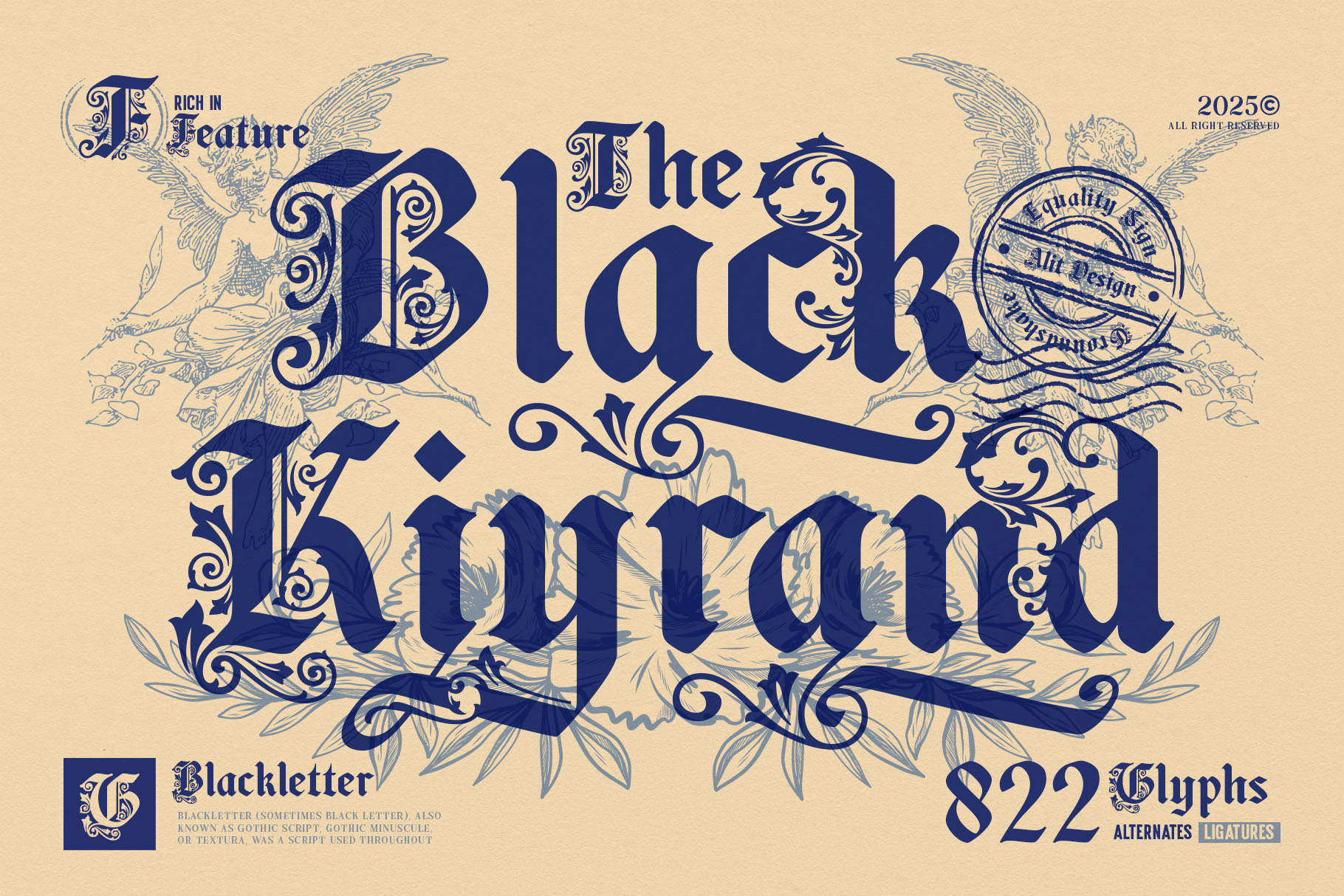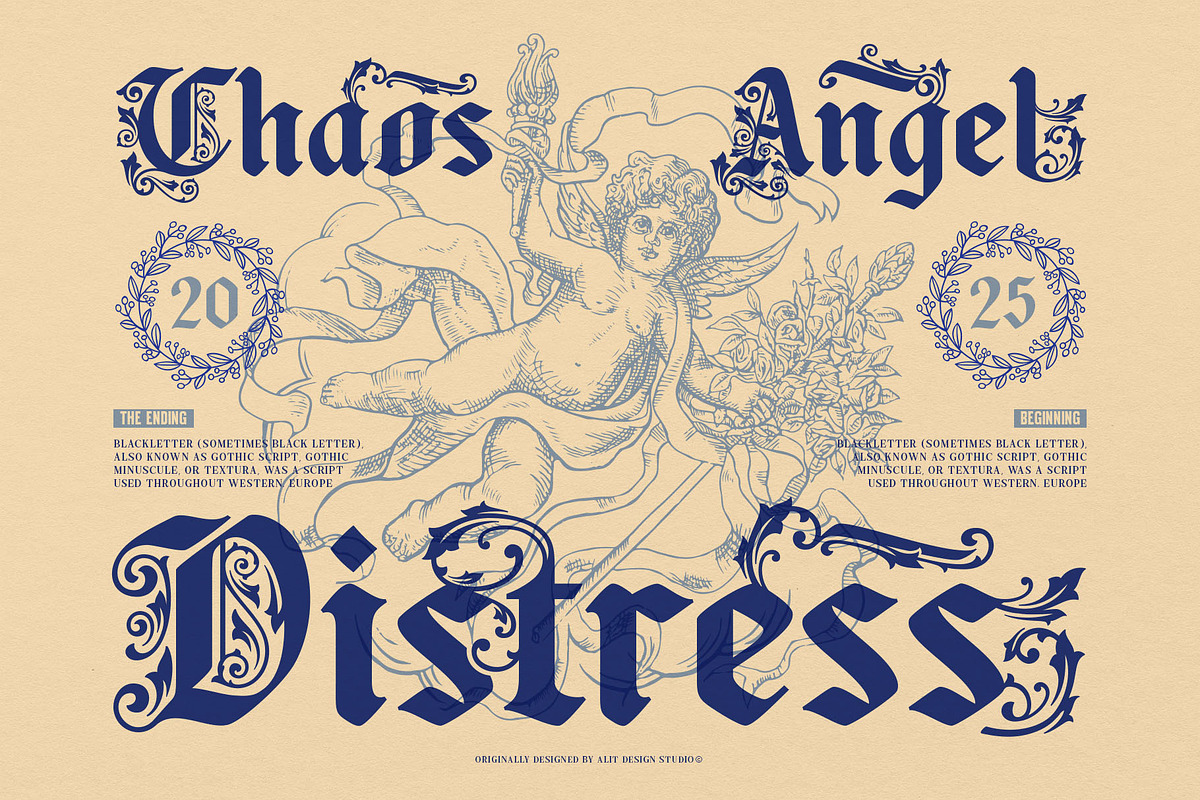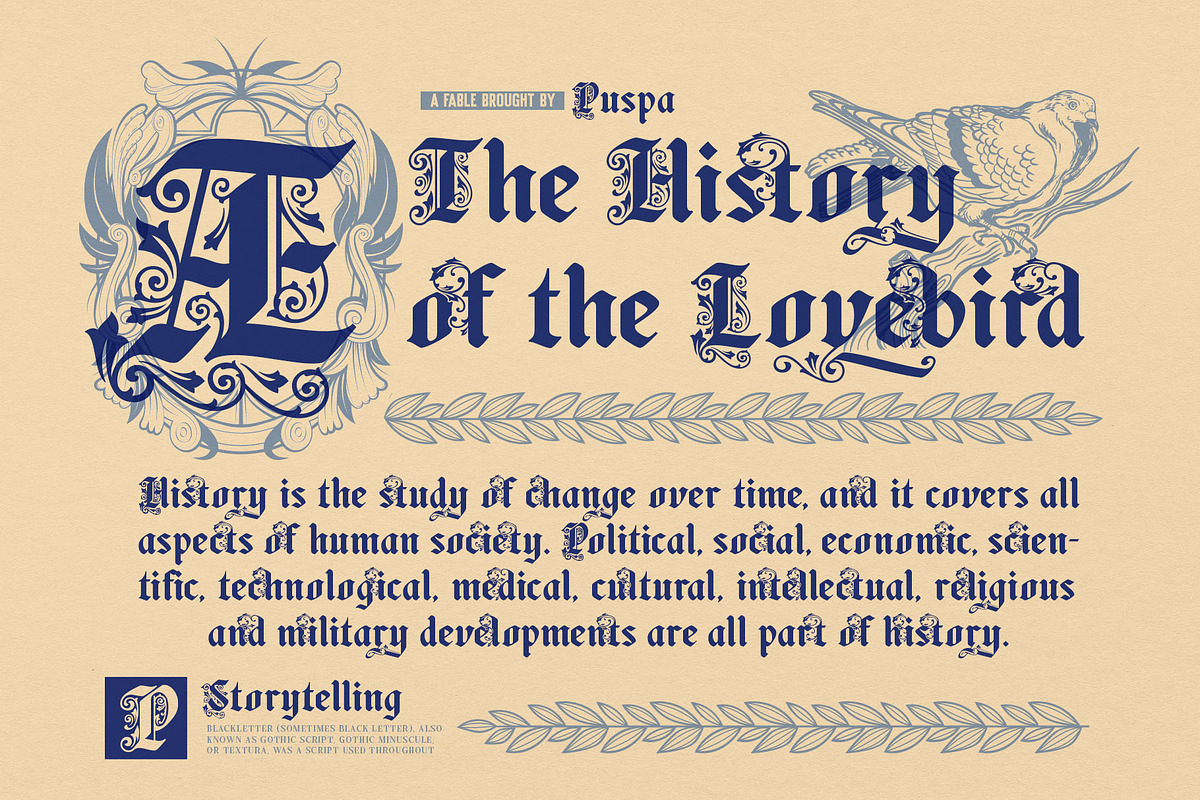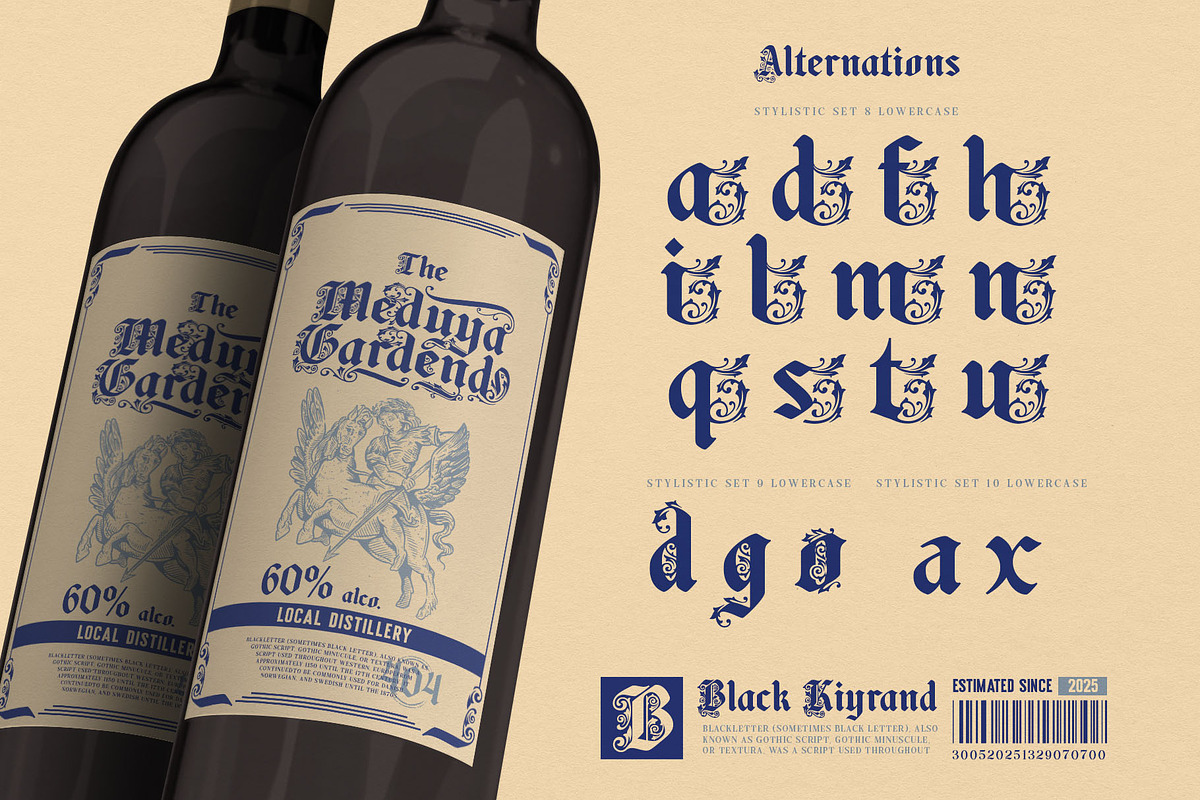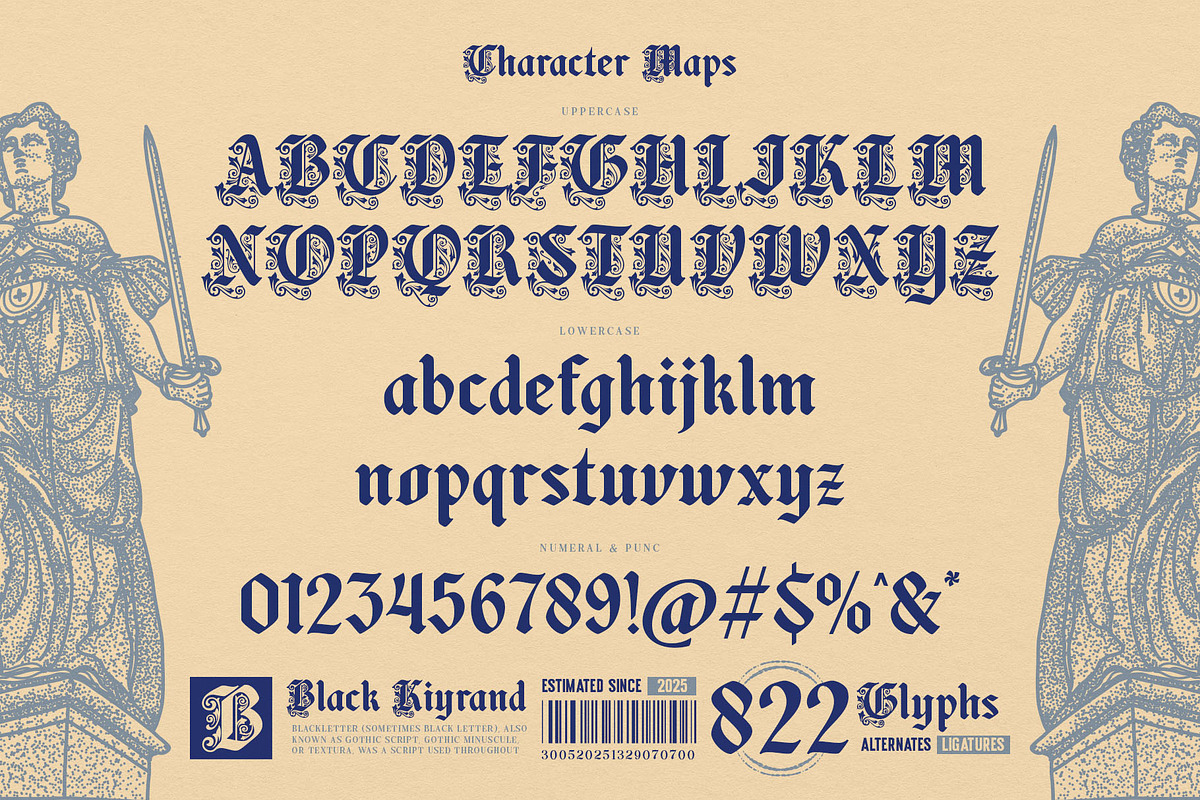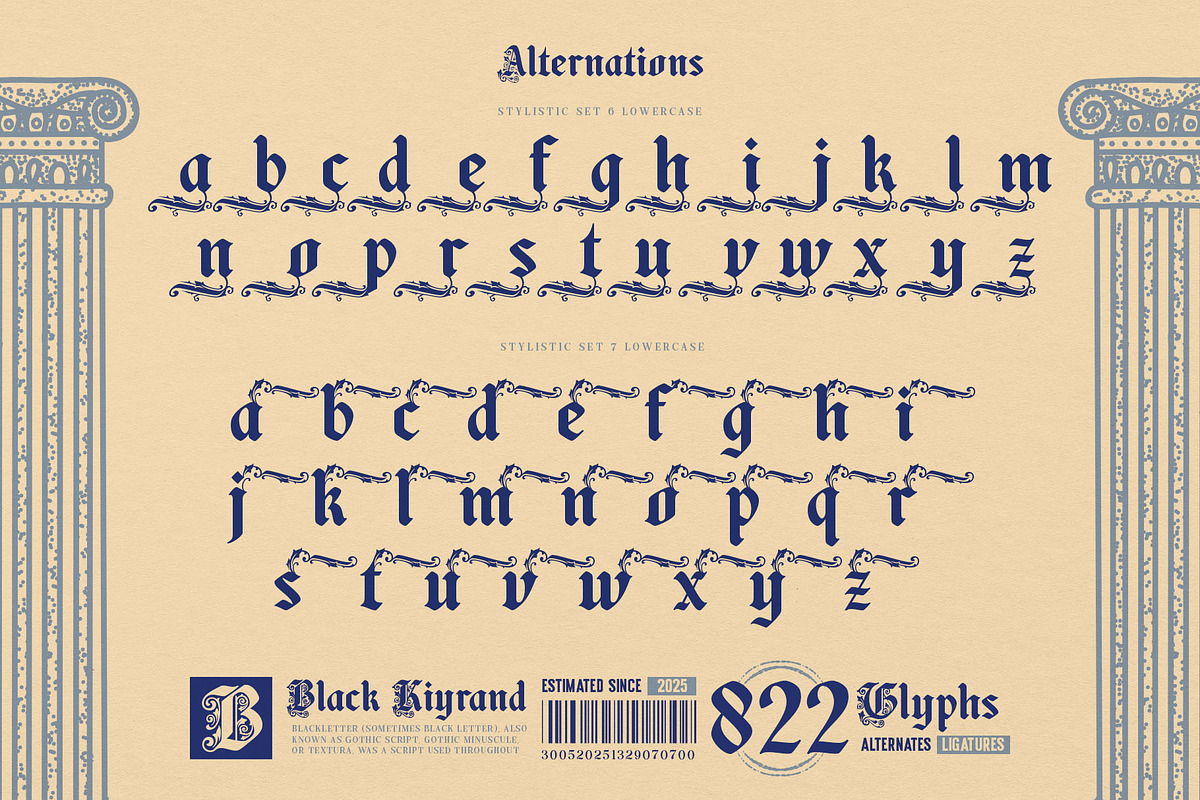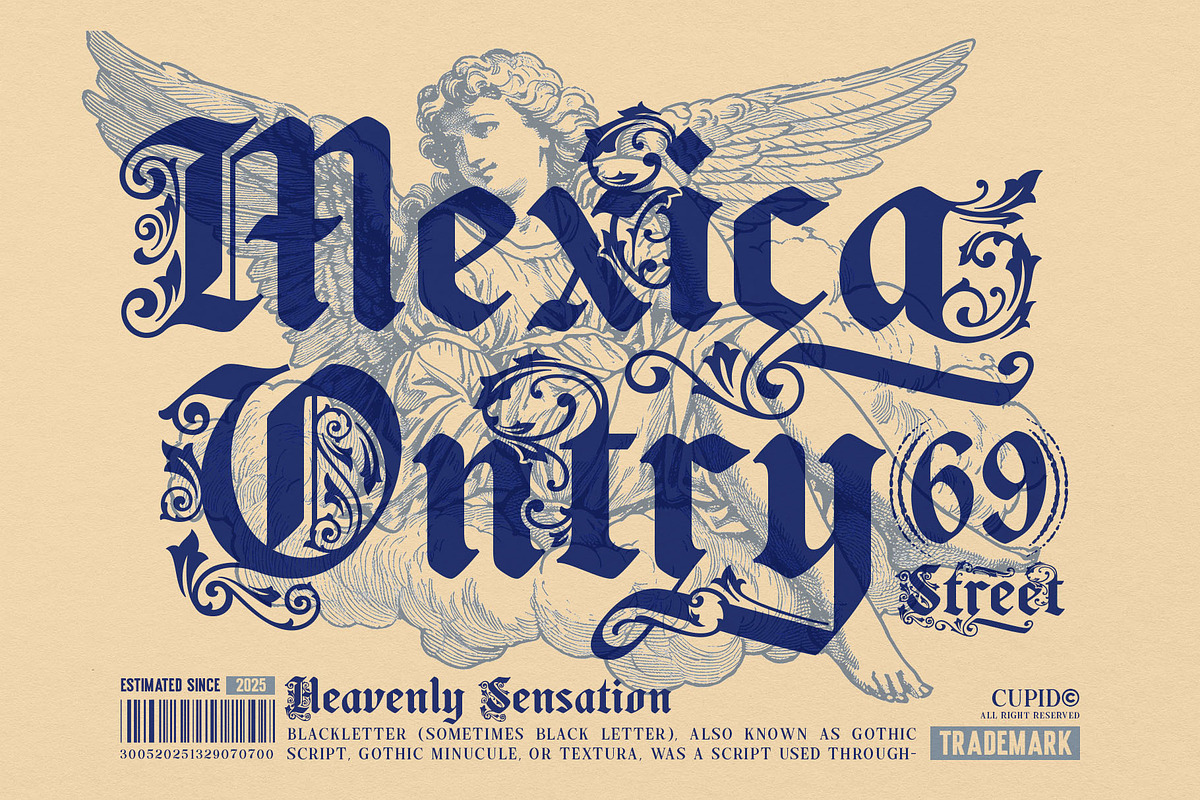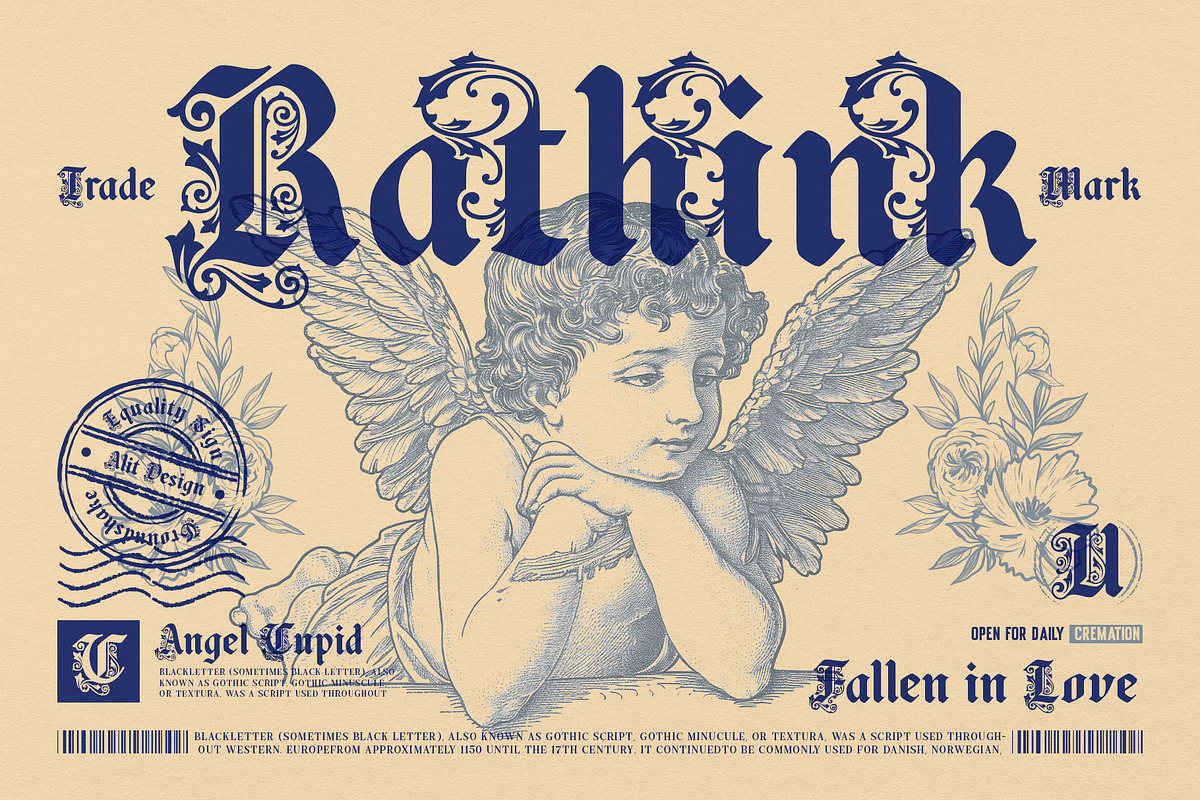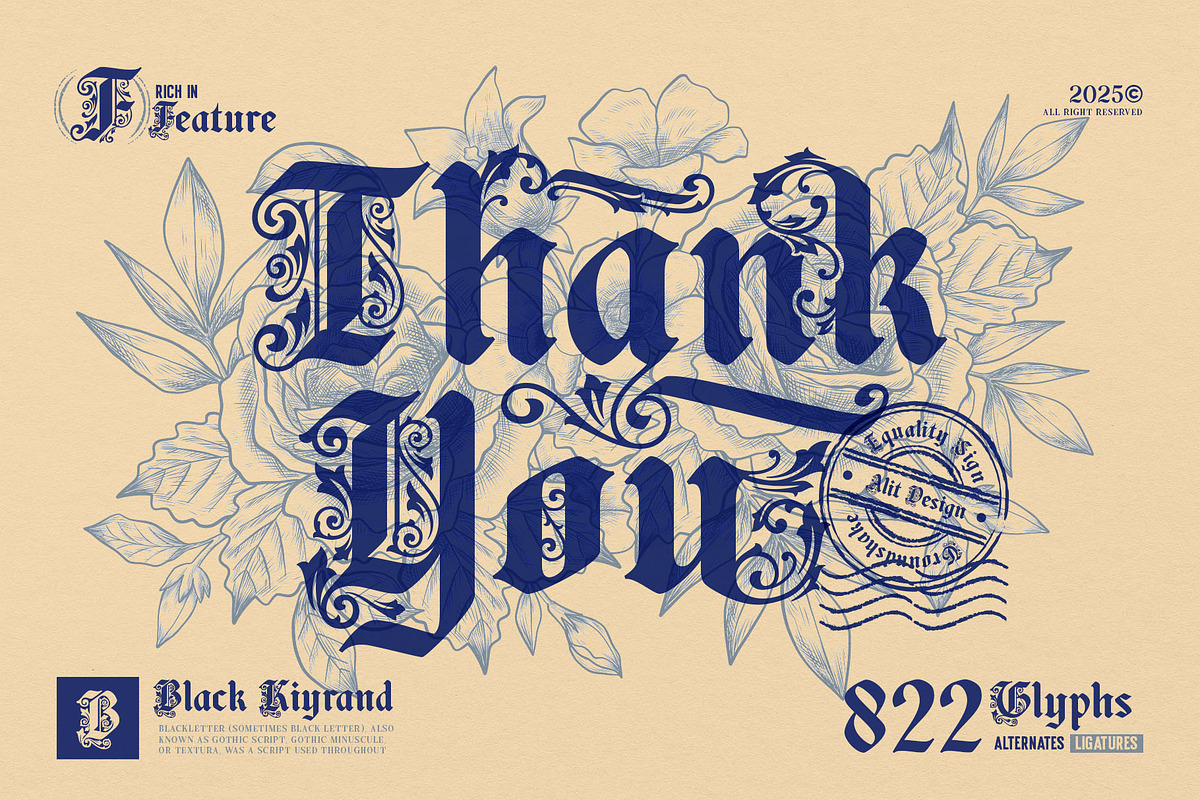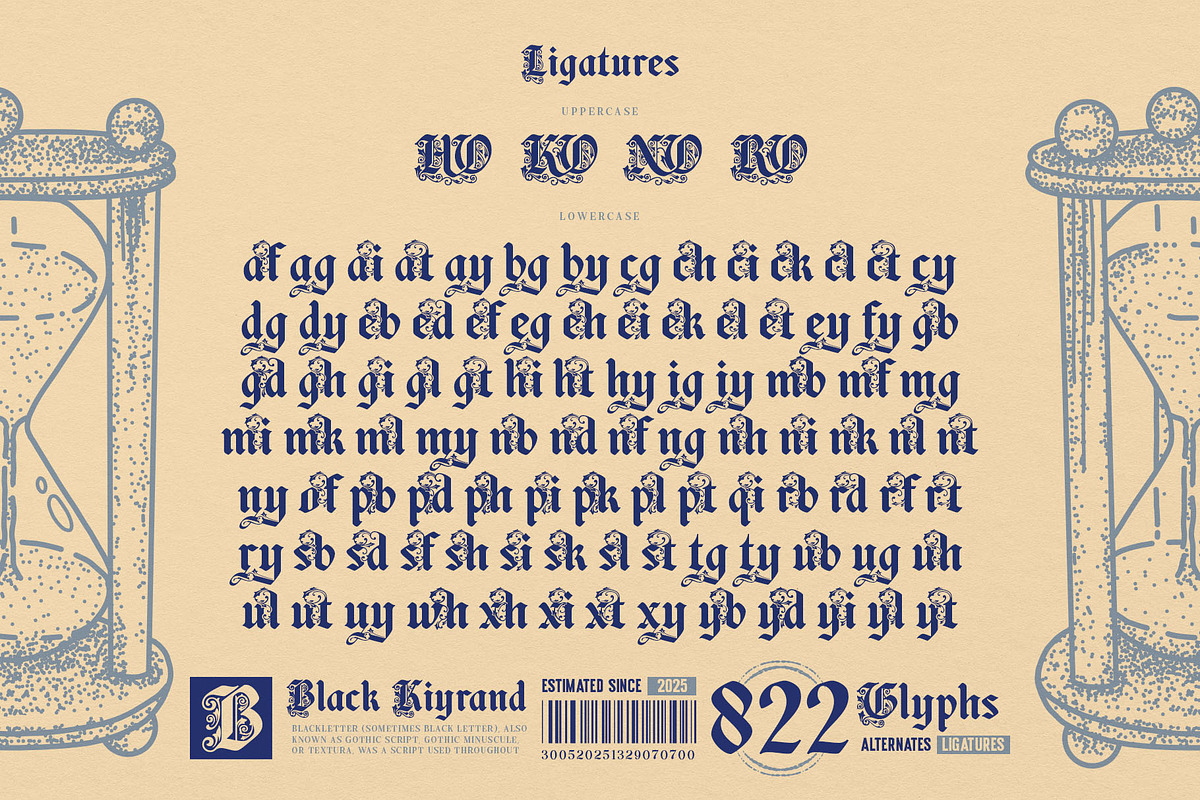
Black Kiyrand Typeface
A Masterpiece of Ornamental Blackletter Elegance
Black Kiyrand Typeface is a richly detailed blackletter font that captures the soul of medieval calligraphy with a bold modern presence. Inspired by Gothic manuscript traditions and adorned with intricate ornamental flourishes, Black Kiyrand is the perfect harmony of historical elegance and contemporary craft.
This typeface is meticulously crafted with 822 glyphs, including alternates and ligatures, making it incredibly versatile for a wide range of creative applications—from vintage posters, book covers, and certificates to branding, packaging, and apparel with an old-world charm.
Each character is designed with refined flourishes and baroque touches, giving your text a regal, artistic presence. Uppercase letters are lavishly ornamented, ideal for standout headlines or monogram work, while the lowercase maintains readability with a graceful flow.
- 822 total glyphs for maximum design flexibility
- Full set of uppercase and lowercase characters
- Extensive alternates and ligatures
- Numerals, punctuation, and special characters
- Perfect for vintage designs, gothic branding, book titles, and more
- Inspired by classic Blackletter (Textura) calligraphy traditions
Black Kiyrand is not just a font—it's a statement. Step into a world of typographic nobility and let your words echo with historical grandeur.